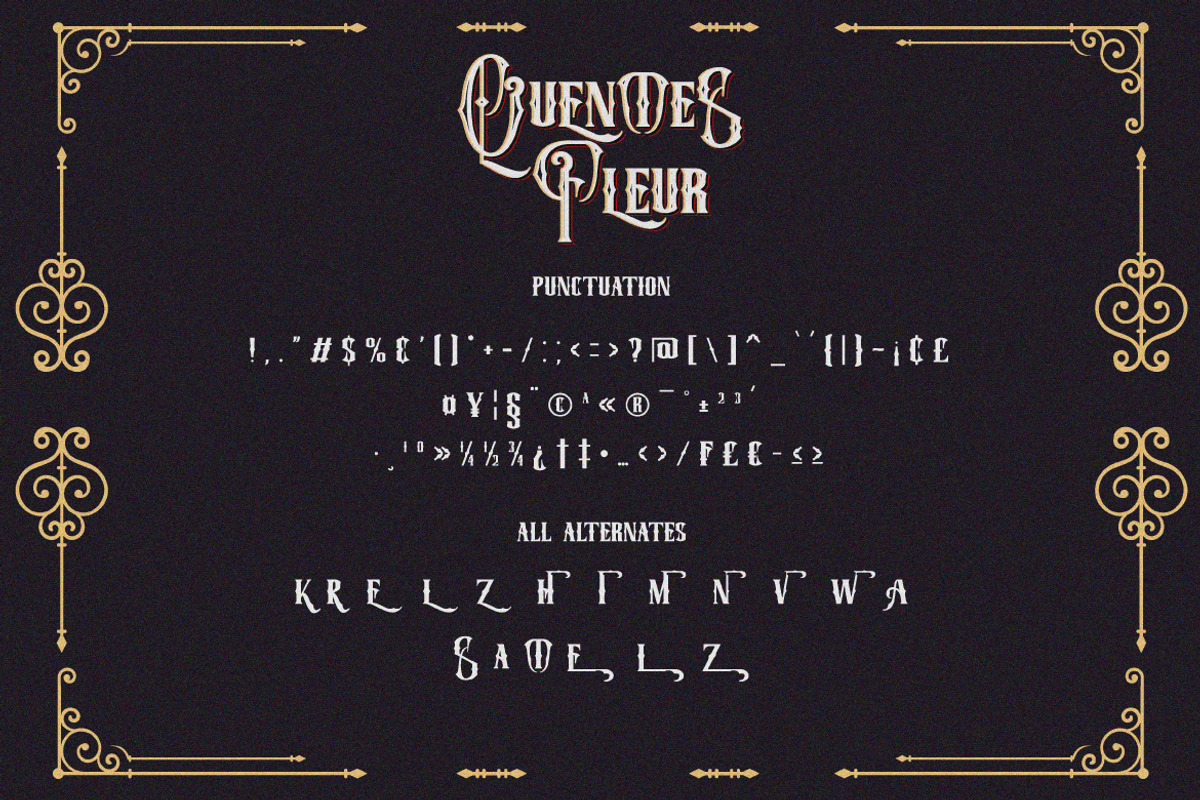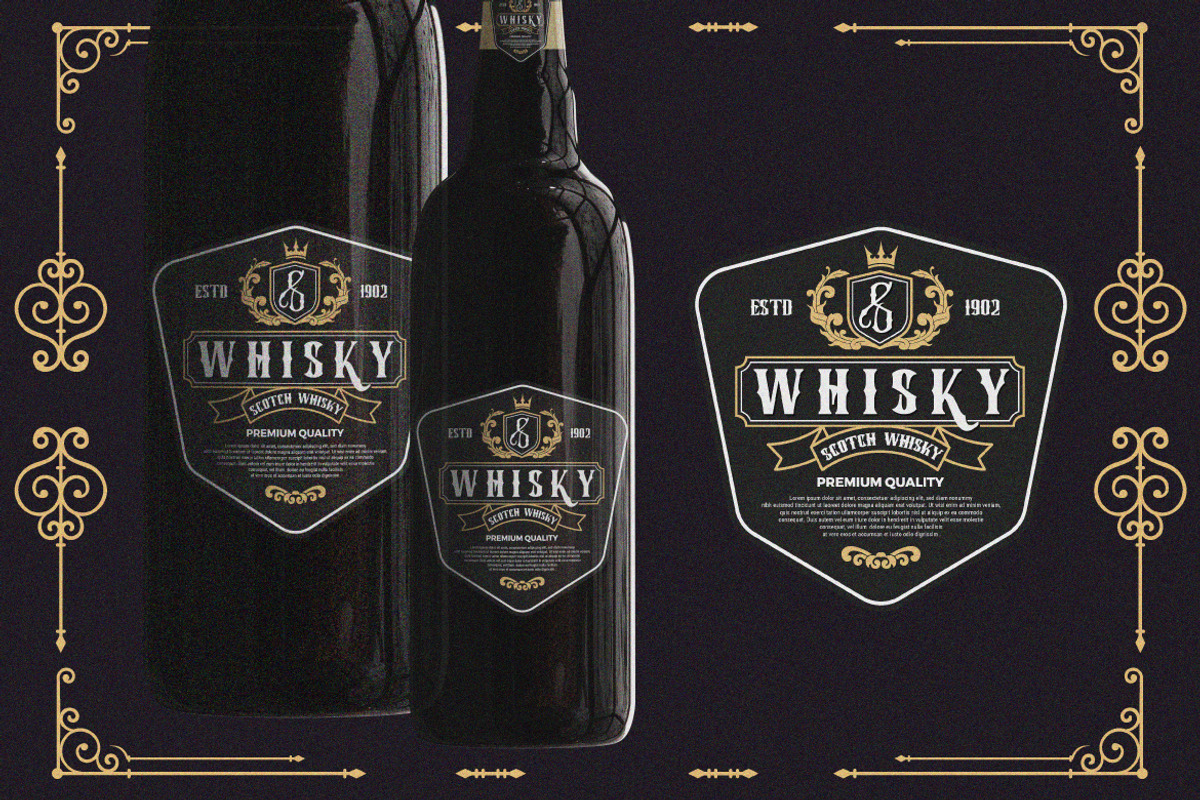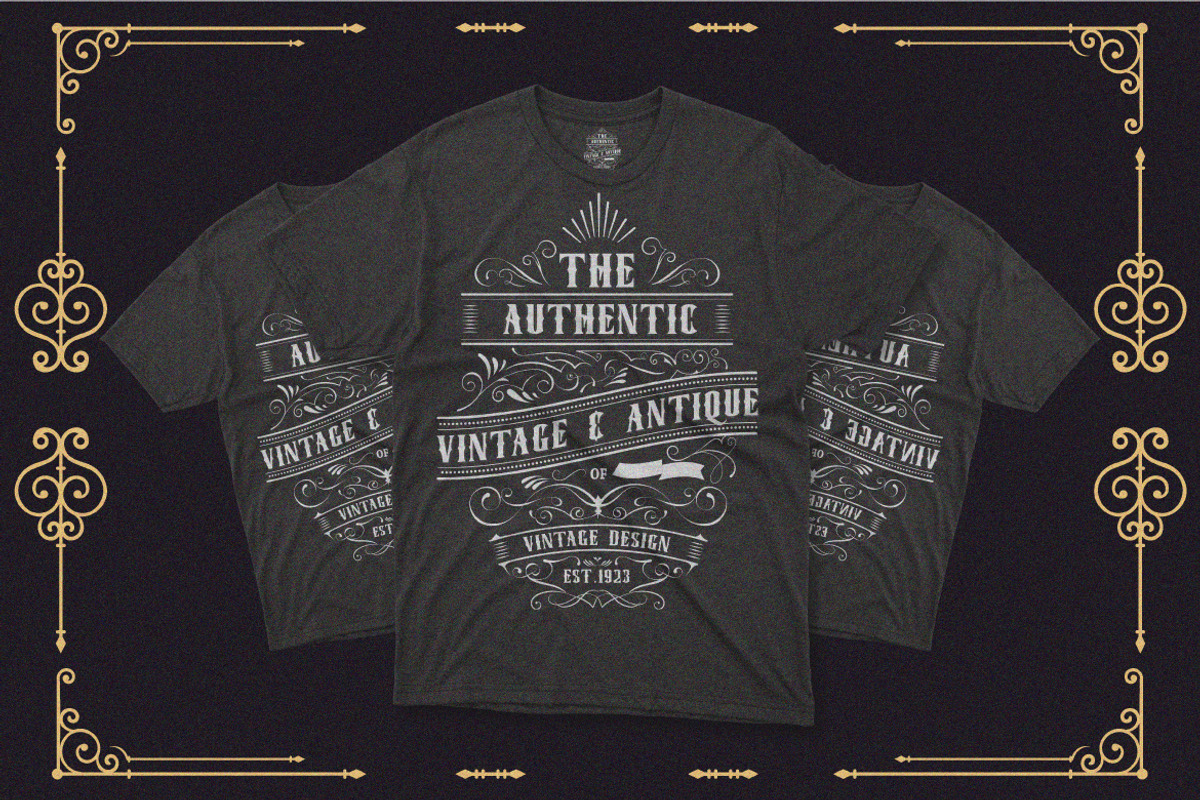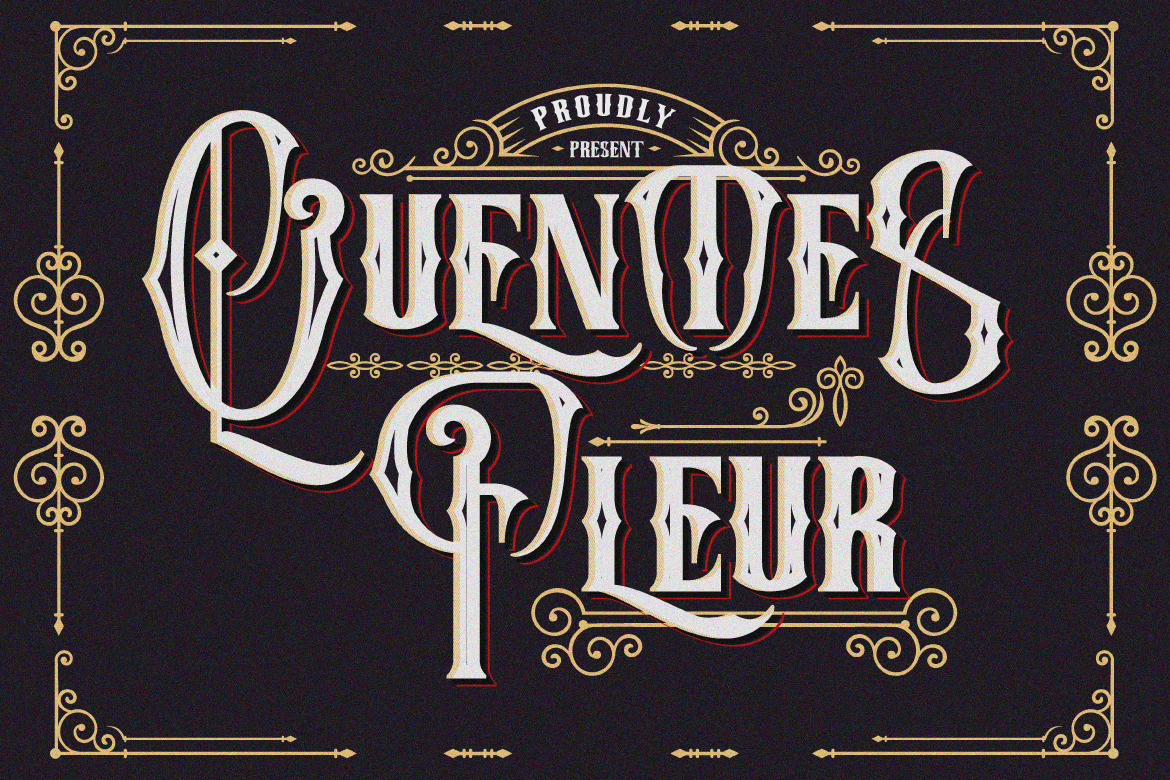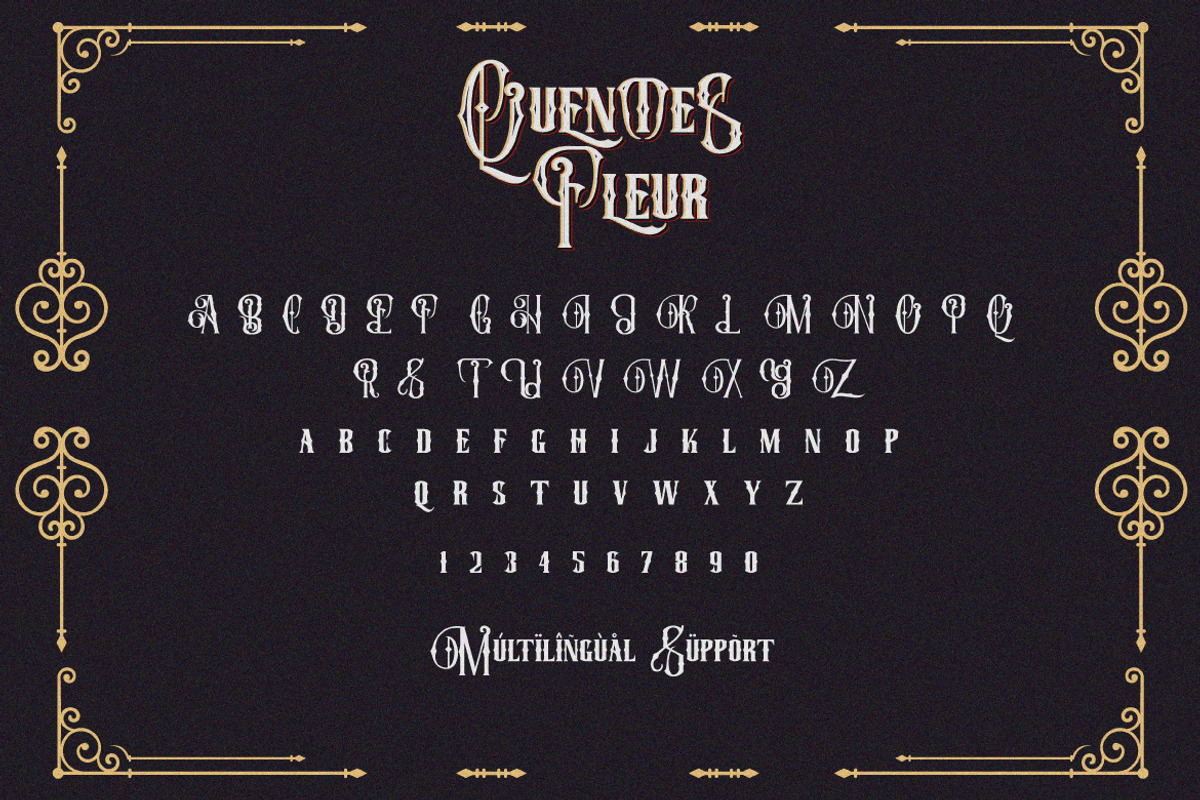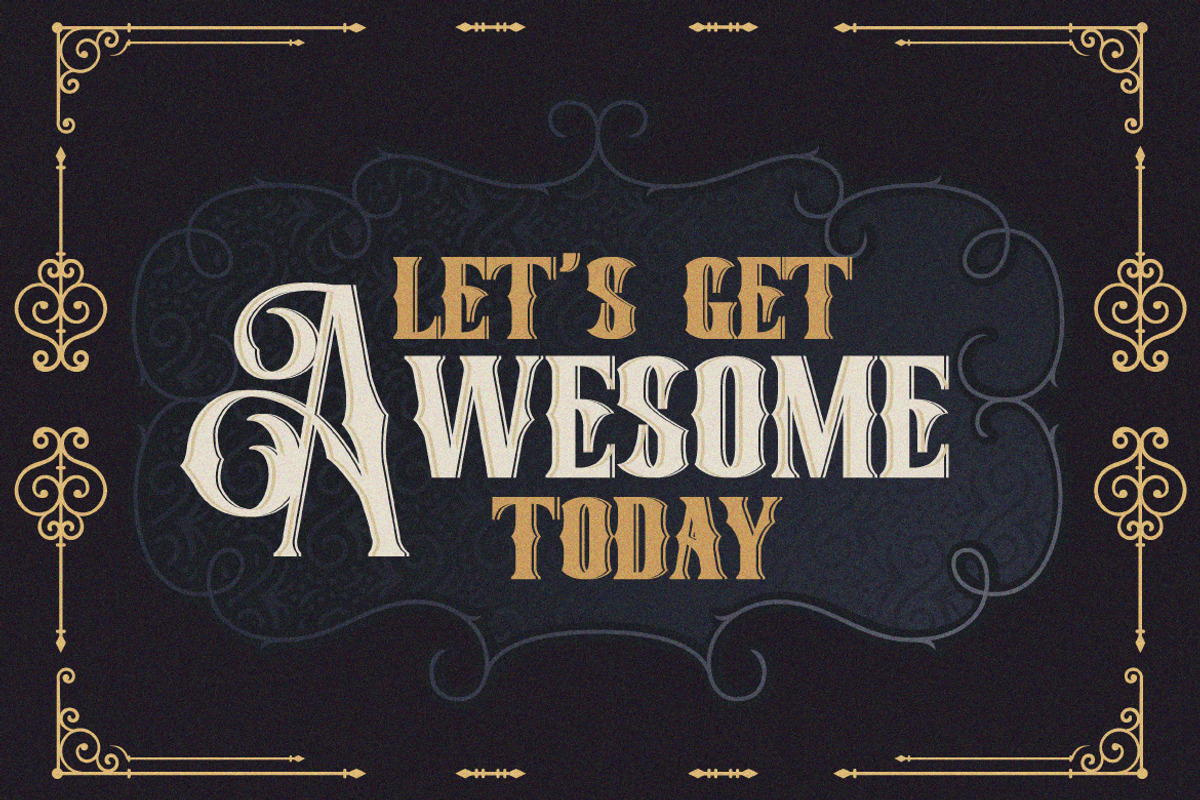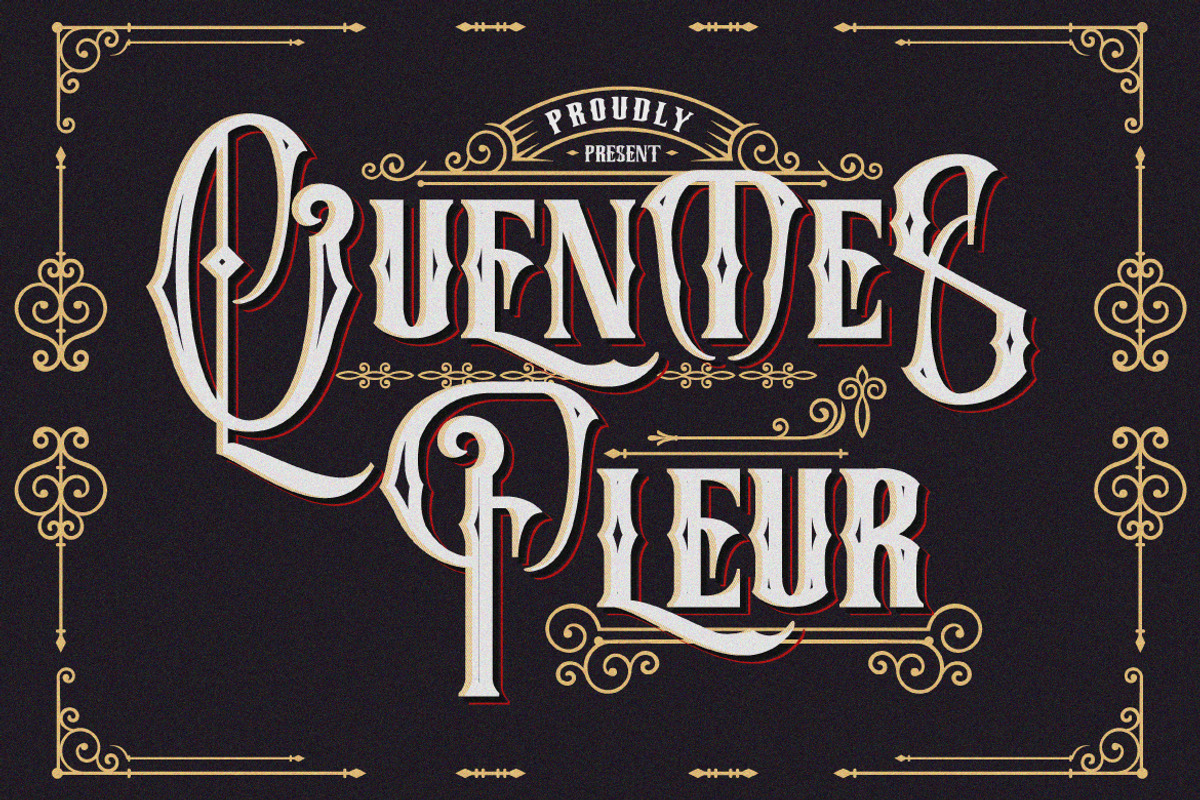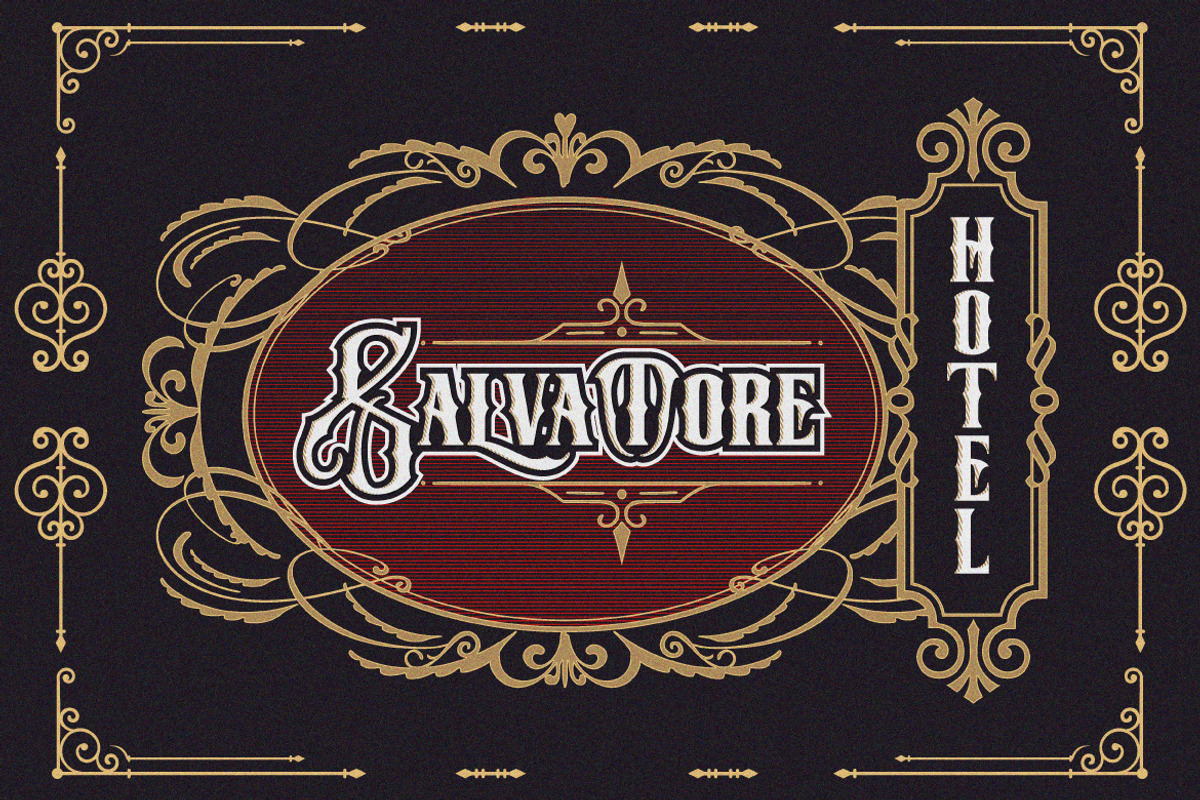
Quentes Fleur - A Tatoo Font
Quentes Fleur is stands out as a diverse selection of typefaces, beautiful alternates character that maintain a coherent look and feel throughout. font is perfect for branding, headings, signatures, logos, blog, wedding invitations, t-shirts, letterhead, merchandise, signage, lable, news, posters, badges etc.
- Character Set A-Z
- Numberal
MULTiLINGUAL ACCENT
žŠŒšŸÀÁÂÃÄÅÆÇÈÉÊËÌÍÎÏÐÑÒÓÔÕÖØÙÚÛÜÝßàáâãäåæçèéêëìíîïðñòóôõöøùúûüýÿ